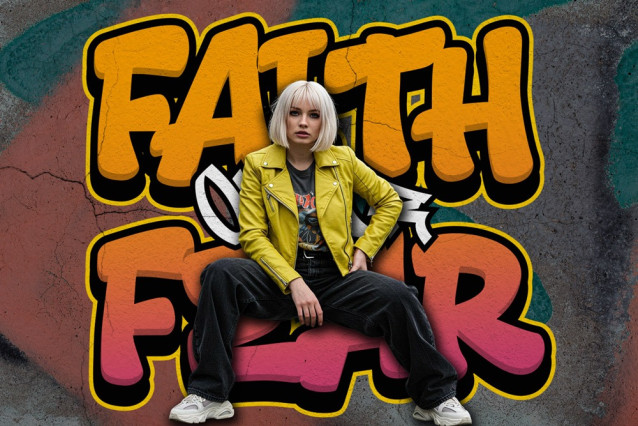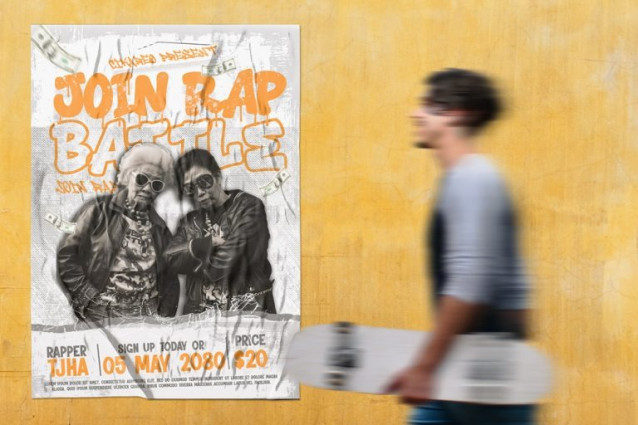
Toxic Rebel Font
Toxic Rebel Font, a bold graffiti font that captures the rebellious energy of urban streets, is Toxic Rebel – Graffiti Outline Font with 4 Styles. This font is designed for creatives who want to bring street life to their projects, while keeping versatility and multilingual usability at its core. With uppercase characters, full multilingual support, and four unique styles, Toxic Rebel is more than just a font—it’s a creative weapon for designers who are passionate about edgy, rebellious, and bold imagery.
Why Toxic Rebel Stands Out in the World of Graffiti Fonts
The graffiti industry is one of the fastest growing design styles, especially in the fields of streetwear branding, album covers, poster design, and digital content creation. Toxic Rebel captures the essence of the movement with its strong lines, drip patterns, and clean, versatile alternatives. It delivers exactly what designers crave: authenticity and readability. Unlike many other graffiti fonts that trade legibility for style, Toxic Rebel finds the perfect balance between street authenticity and professional usability.